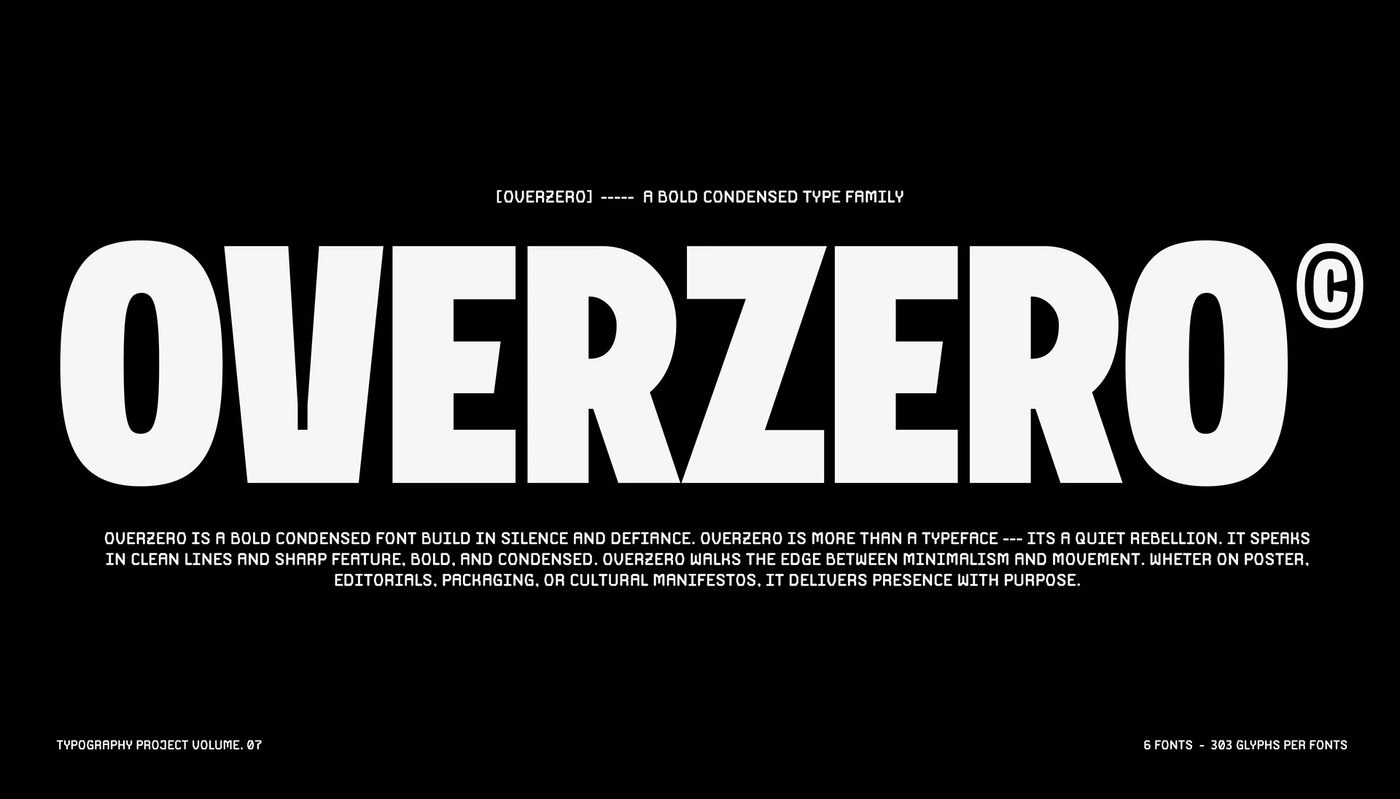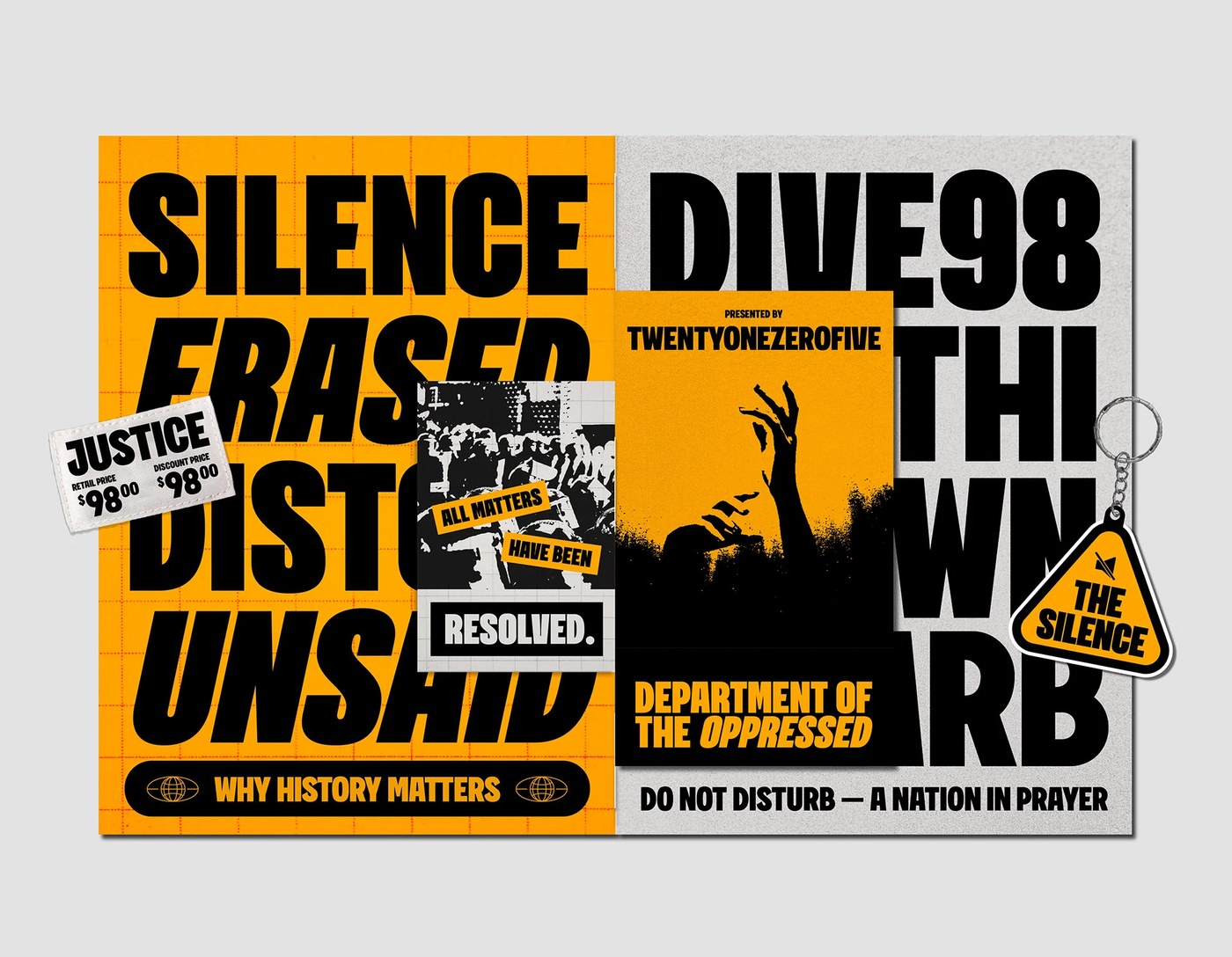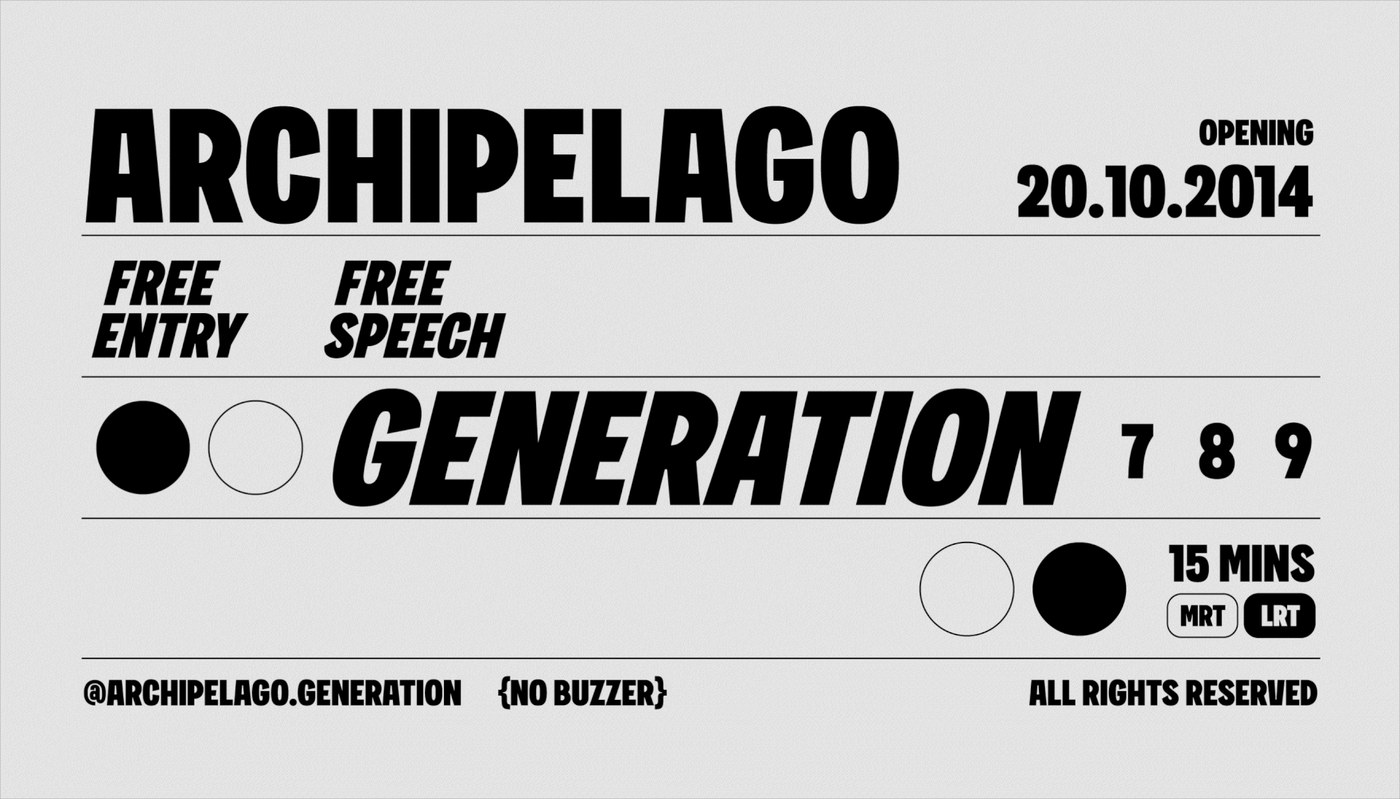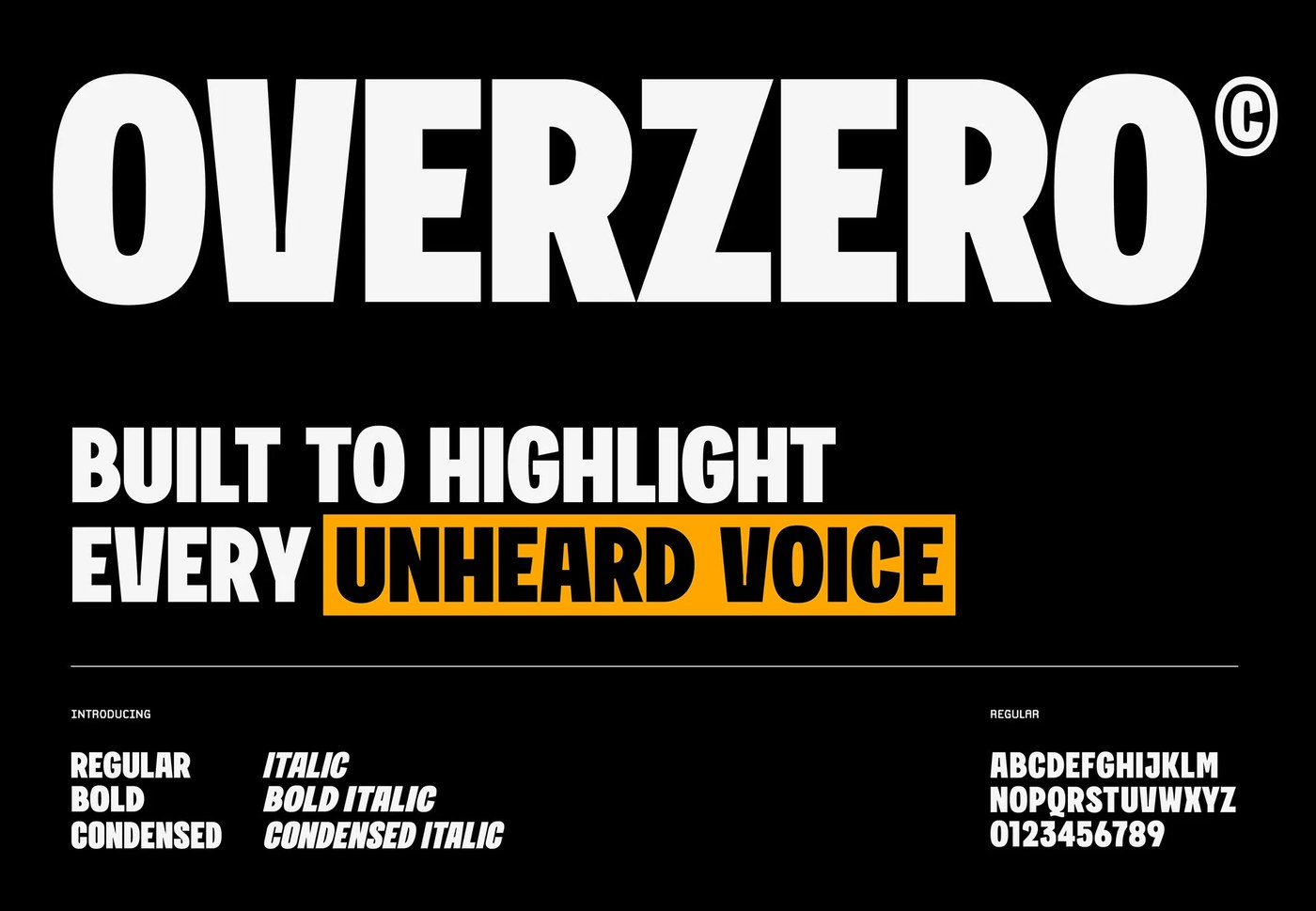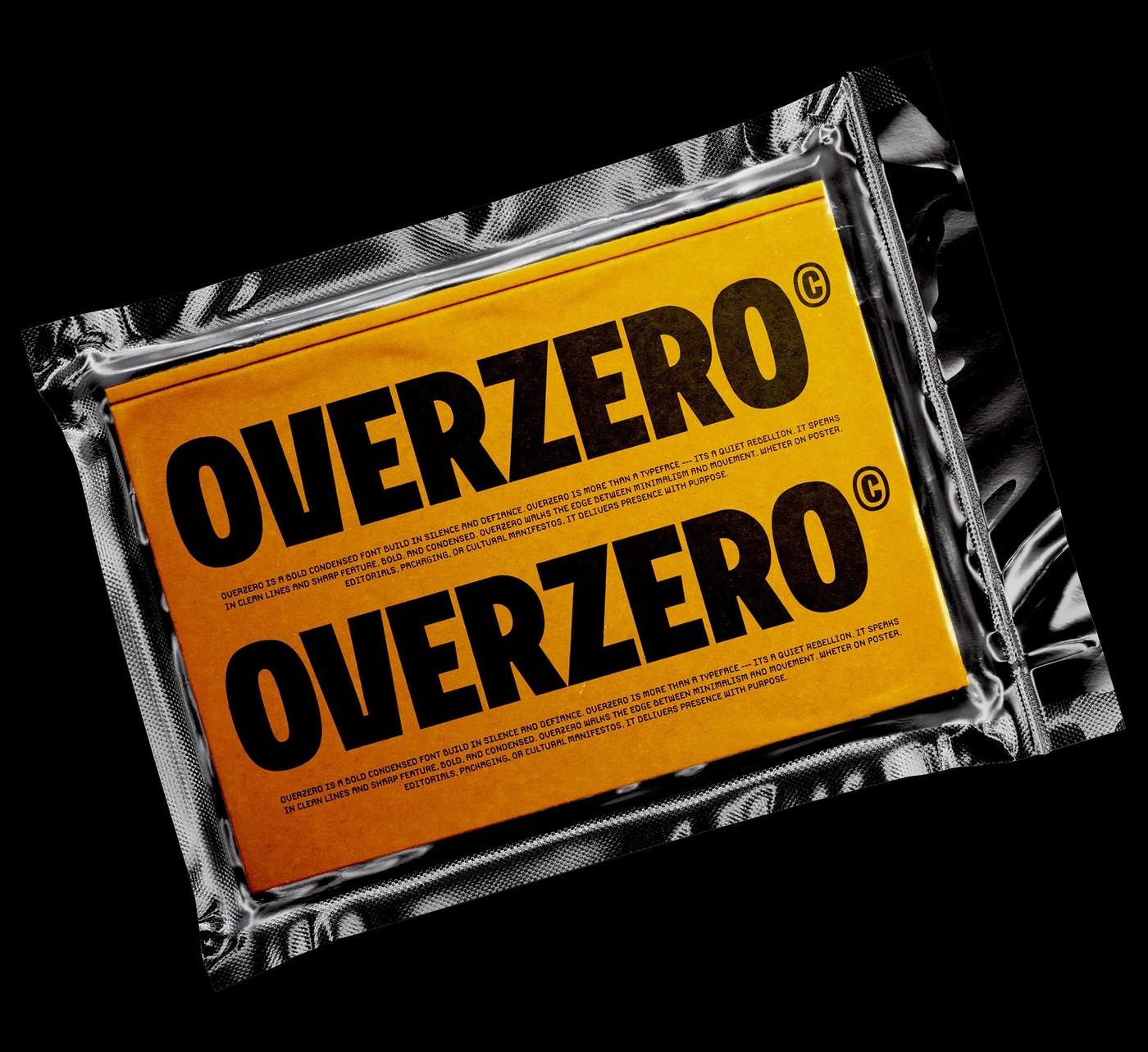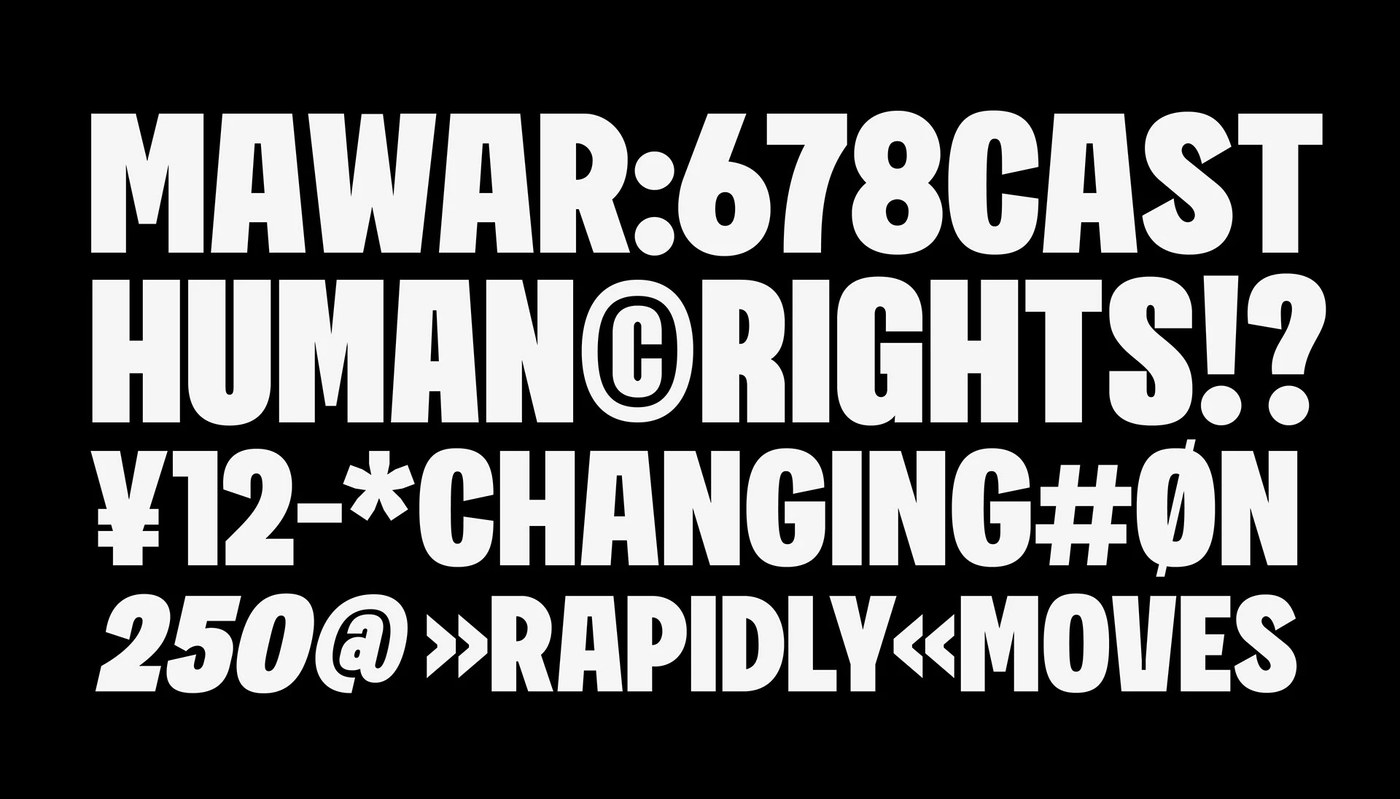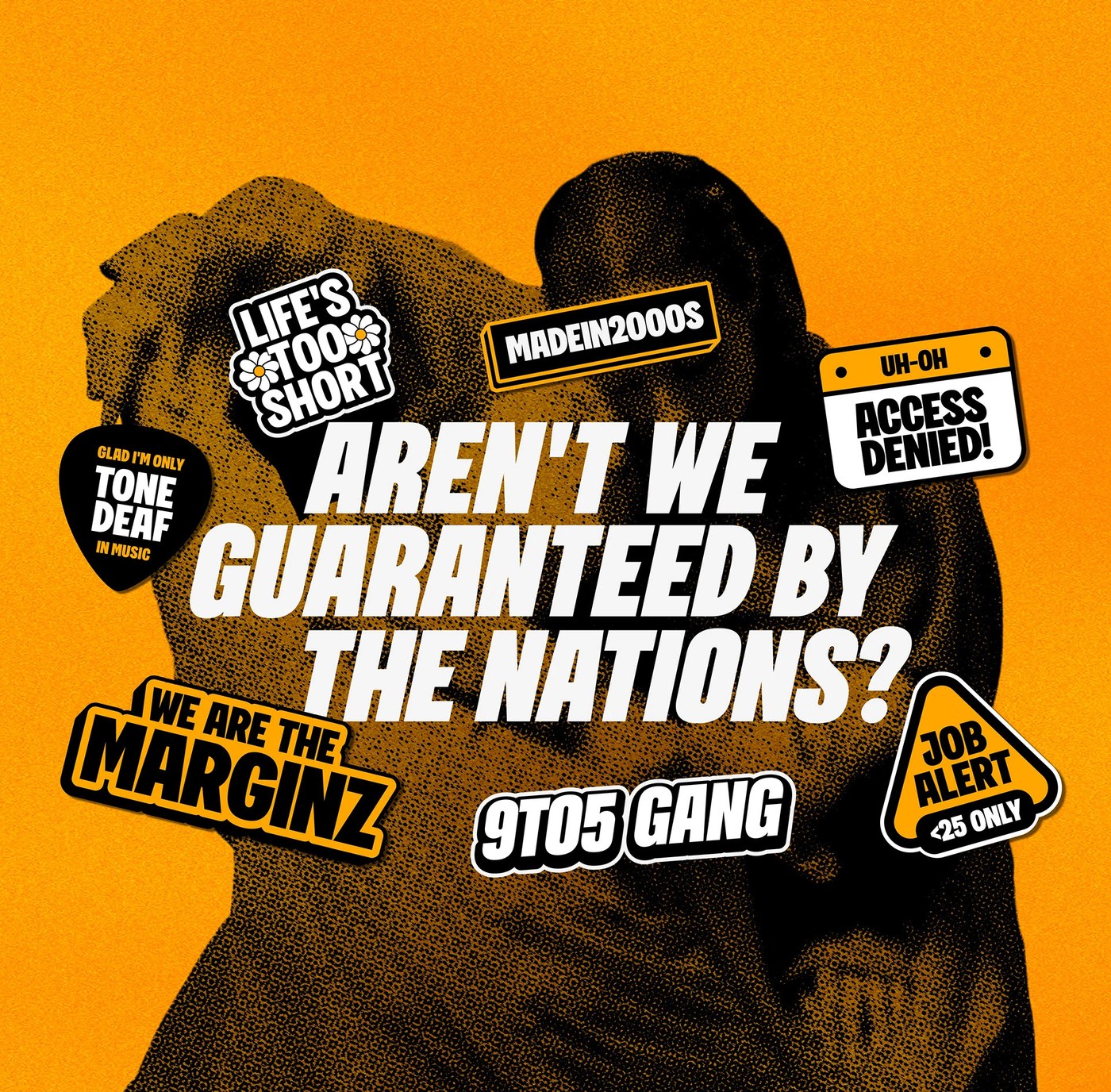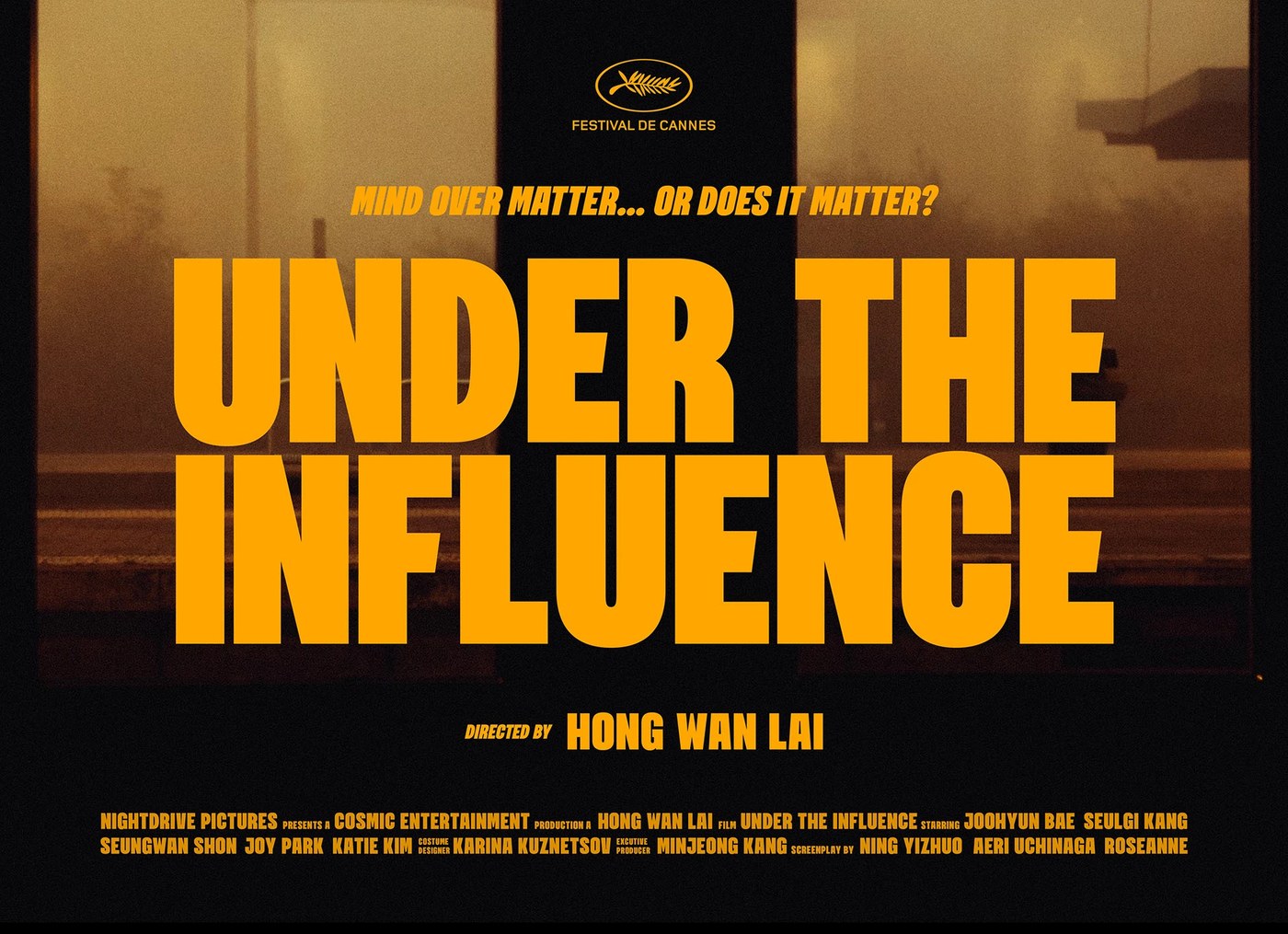
Bold Condensed Display Typeface: Overzero by Fredella Agatha
Overzero is a bold condensed display typeface designed by Fredella Agatha. The font has sharp shapes and tight spacing, making it ideal for layouts.
It works well for layout designs that need to stand out. The release includes italic options and multi-lingual glyphs, making the font useful for brand designs. The sample designs use strong modular grids. Yellow and black backdrops create the composition's visual rhythm. The letters use strict geometric restraint. Each letter has a tall height and narrow width. This shape saves space in book page layouts. The letters end in sharp, straight cuts. The flat tops of letters like A and V help the baseline alignment. The negative space inside the letters is very small. This creates a dense, solid block of text when set at large sizes.
The Role of a Bold Condensed Display Typeface
The sample work shows tactile contrast. Designers can pair the clean vector curves with raw texture. For example, paper prints and stickers contrast with the clean digital lines. The visual rhythm remains intact across diverse physical applications. This balance keeps the text easy to read at any size. The letters command space, especially when rendered in large-scale formats. A clear structural hierarchy guides the reader through the page. Choosing a bold condensed display typeface like Overzero makes for clean print work. The font works well on shirts, boxes, and web screens.
Fredella Agatha made this font for indie designers. Modern work needs good brand tools that fit small budgets. Pixel Surplus sells the font, and offers one weight for free. The complete family costs twenty-five dollars. A wide weight range makes typographic scaling simple to apply. It helps designers build unique brands at a low cost. Overzero blends old wood type with new poster art. It is a clear tool for direct graphic work. This bold condensed display typeface is a great tool for any designer.